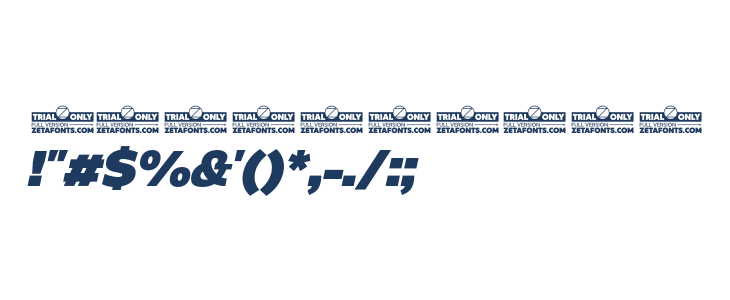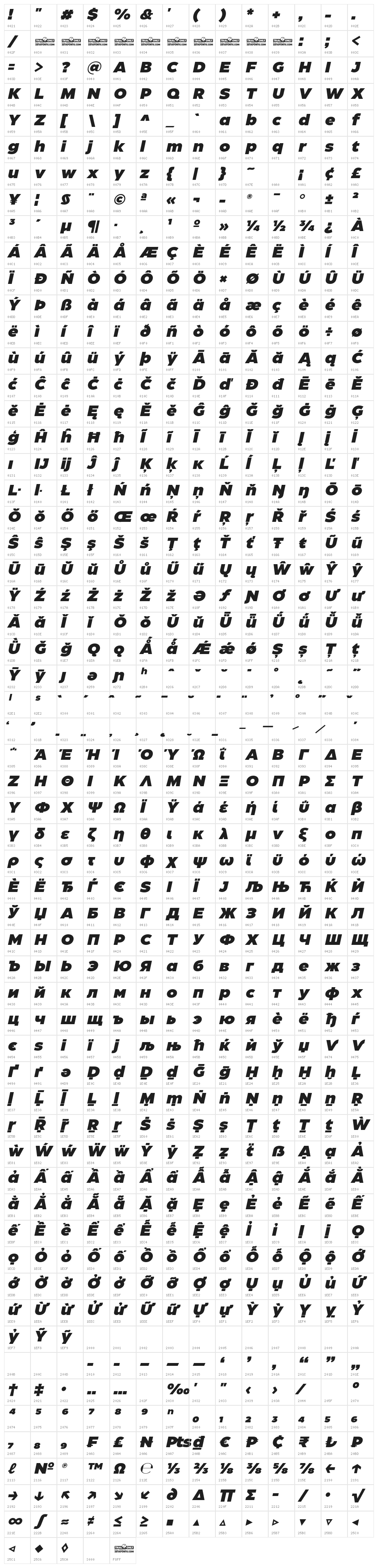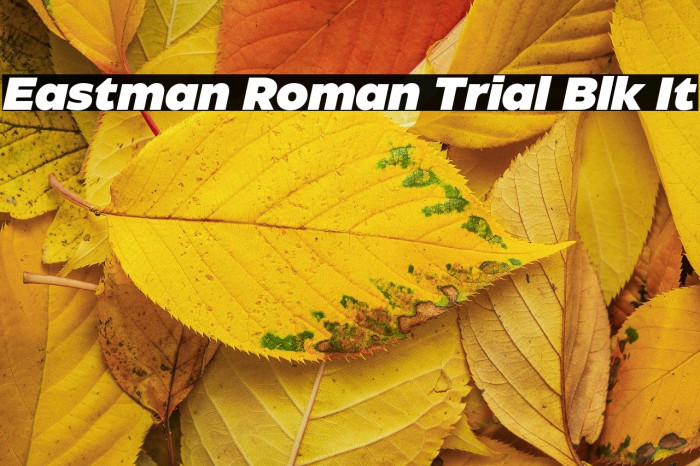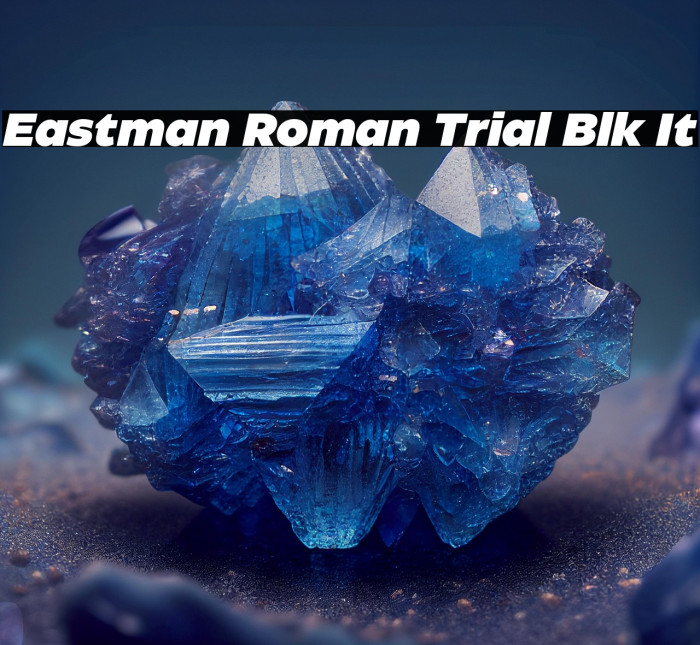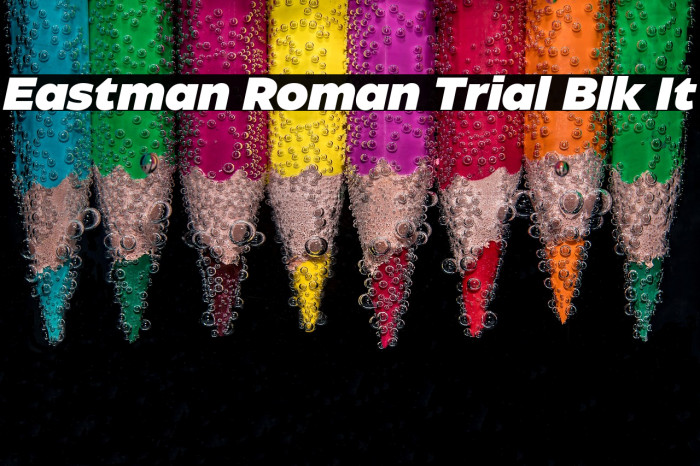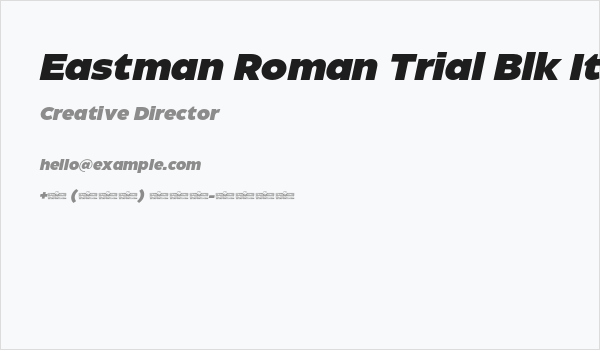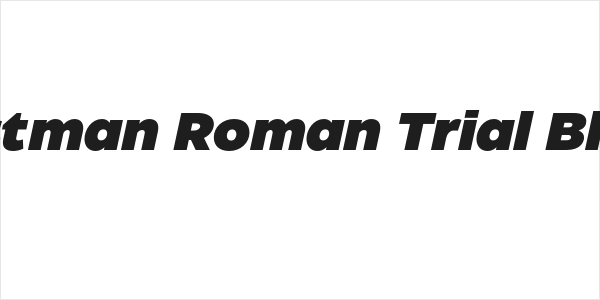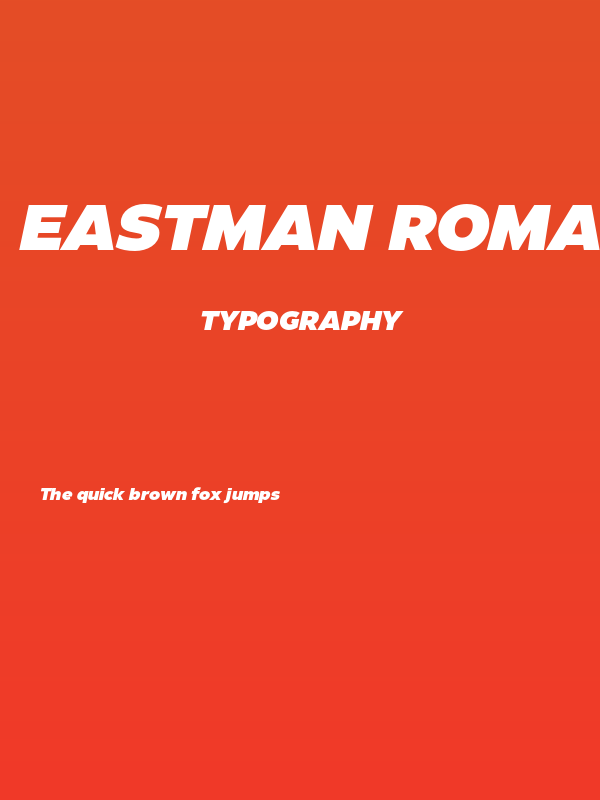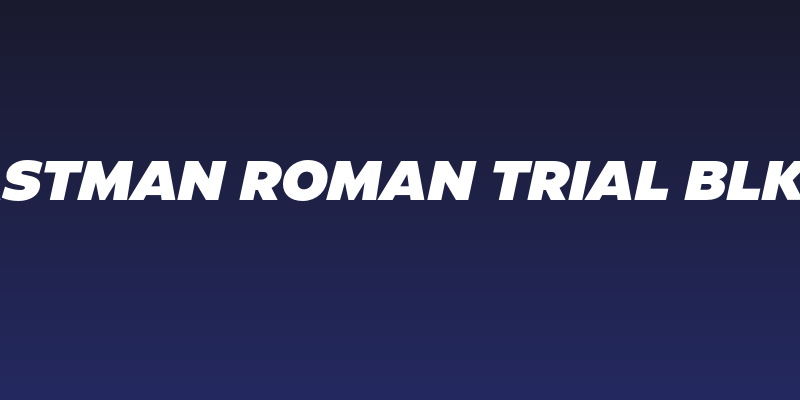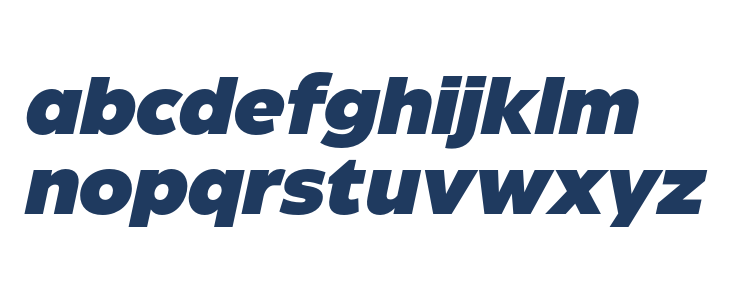
Eastman Roman Trial Blk It Font
Eastman Roman Trial Blk It Description
This font features a bold and italicized style, characterized by its strong and impactful presence. The letters are thick and slightly slanted, giving a dynamic and energetic feel. The uppercase and lowercase letters maintain a consistent weight, ensuring readability and uniformity. The numerals and special characters follow the same bold and italicized design, making them stand out prominently. This font is suitable for projects that require a modern and assertive look, with its high contrast and wide character spacing adding to its striking appearance.
| Use Case | Headlines, Logos, Advertising |
| Proposed Projects | Ideal for headlines, advertising, branding, and any design requiring a bold statement. |